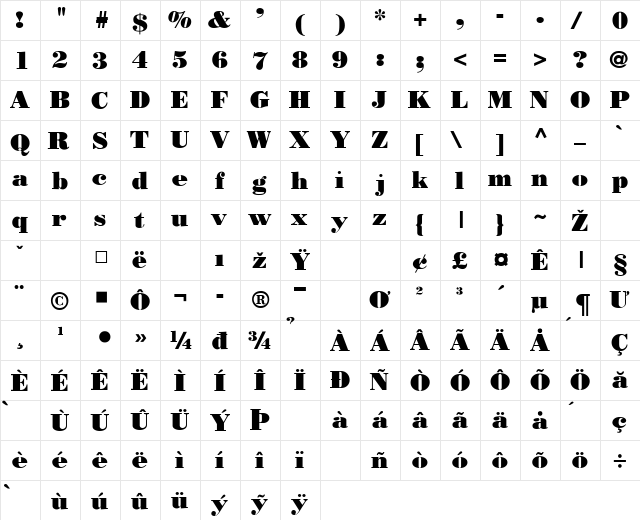
Bodoni-ExtraBold Bold
Design Context for Bodoni-ExtraBold Typeface
Bodoni-ExtraBold offers clean, dependable letterforms without strong stylistic allegiance, making it a practical choice for designers who need flexibility. The heavy weight commands attention and anchors typographic hierarchies.
Pro Tip: Pair Bodoni-ExtraBold with a font of contrasting weight or personality to build a more expressive typographic hierarchy.